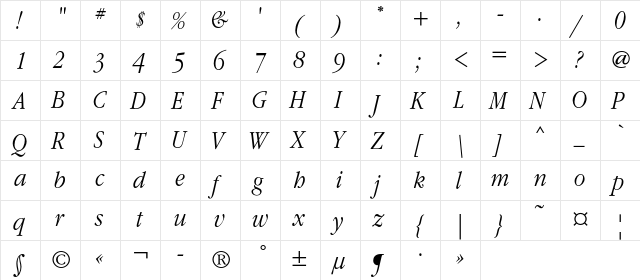
GaramondNarrowC Italic Font Preview
Design Context for GaramondNarrowC Typeface
GaramondNarrowC takes a measured approach to typography — its balanced proportions and neutral character make it a reliable workhorse for both digital and print work. Its italic angle brings a sense of urgency and motion to the letterforms. Its narrow stance lets it pack a punch even in space-constrained designs.
Pro Tip: Try GaramondNarrowC for annotation and caption copy alongside an upright companion — the contrast in angle creates a dynamic but ordered typographic system.